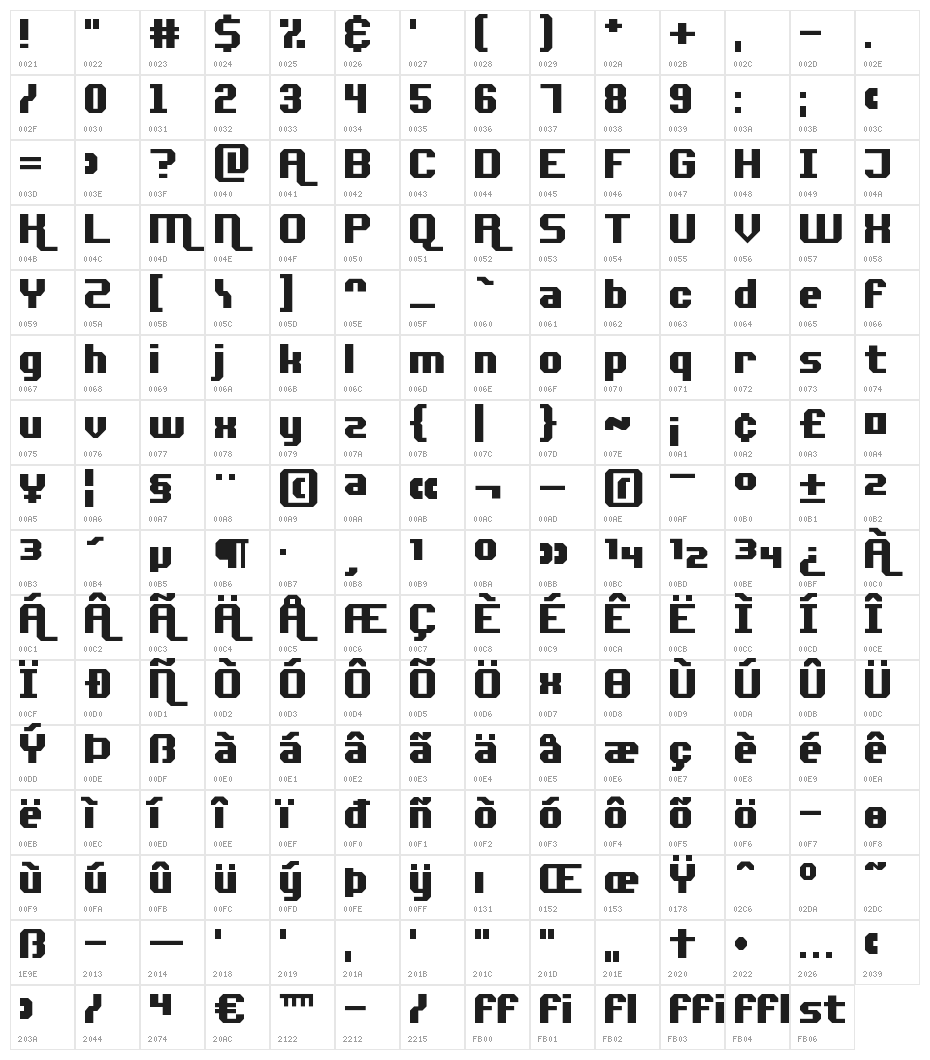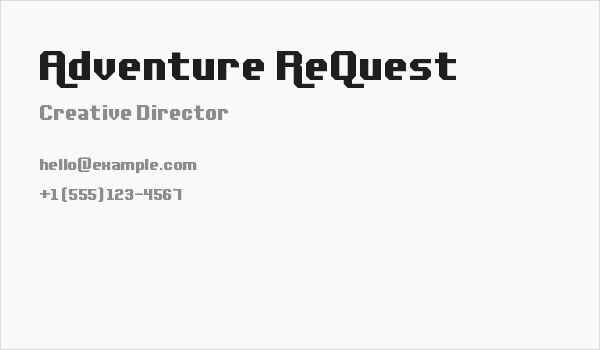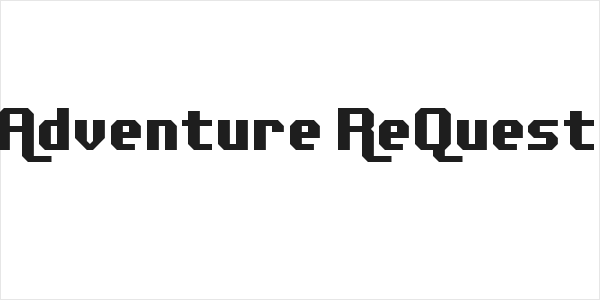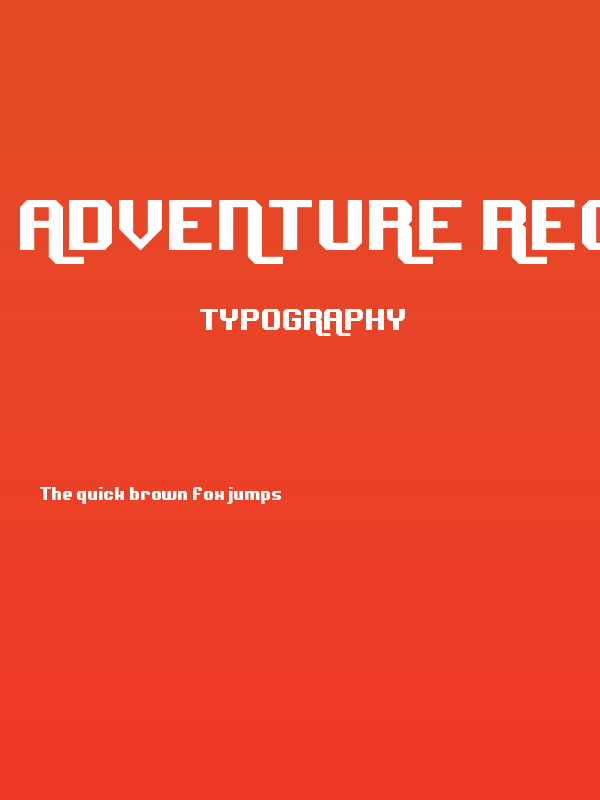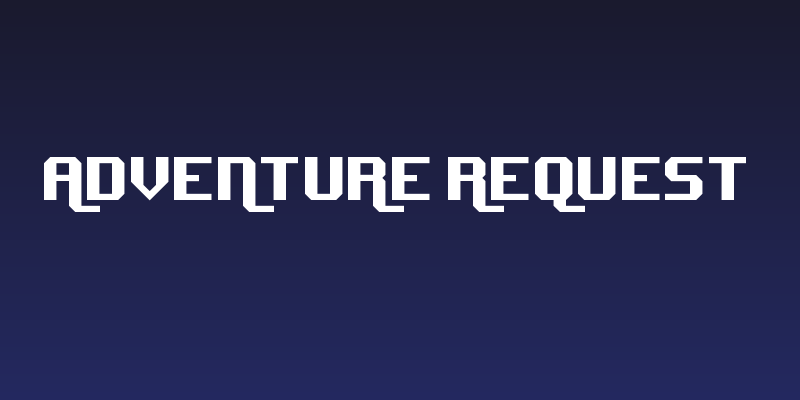
Adventure ReQuest Font
Adventure ReQuest Description
This font features a bold, geometric design with a distinct blocky appearance. The characters are crafted with sharp angles and straight lines, giving it a futuristic and digital feel. The uppercase and lowercase letters maintain a consistent style, with the lowercase being slightly more compact. Numbers and special characters follow the same angular design, ensuring uniformity across all glyphs. The font's strong presence makes it ideal for attention-grabbing headlines and titles. Its unique style is reminiscent of retro video games and digital displays, making it suitable for projects that require a tech-savvy or adventurous aesthetic.
| Proposed Projects | Ideal for video game titles, tech-themed posters, and digital displays. |